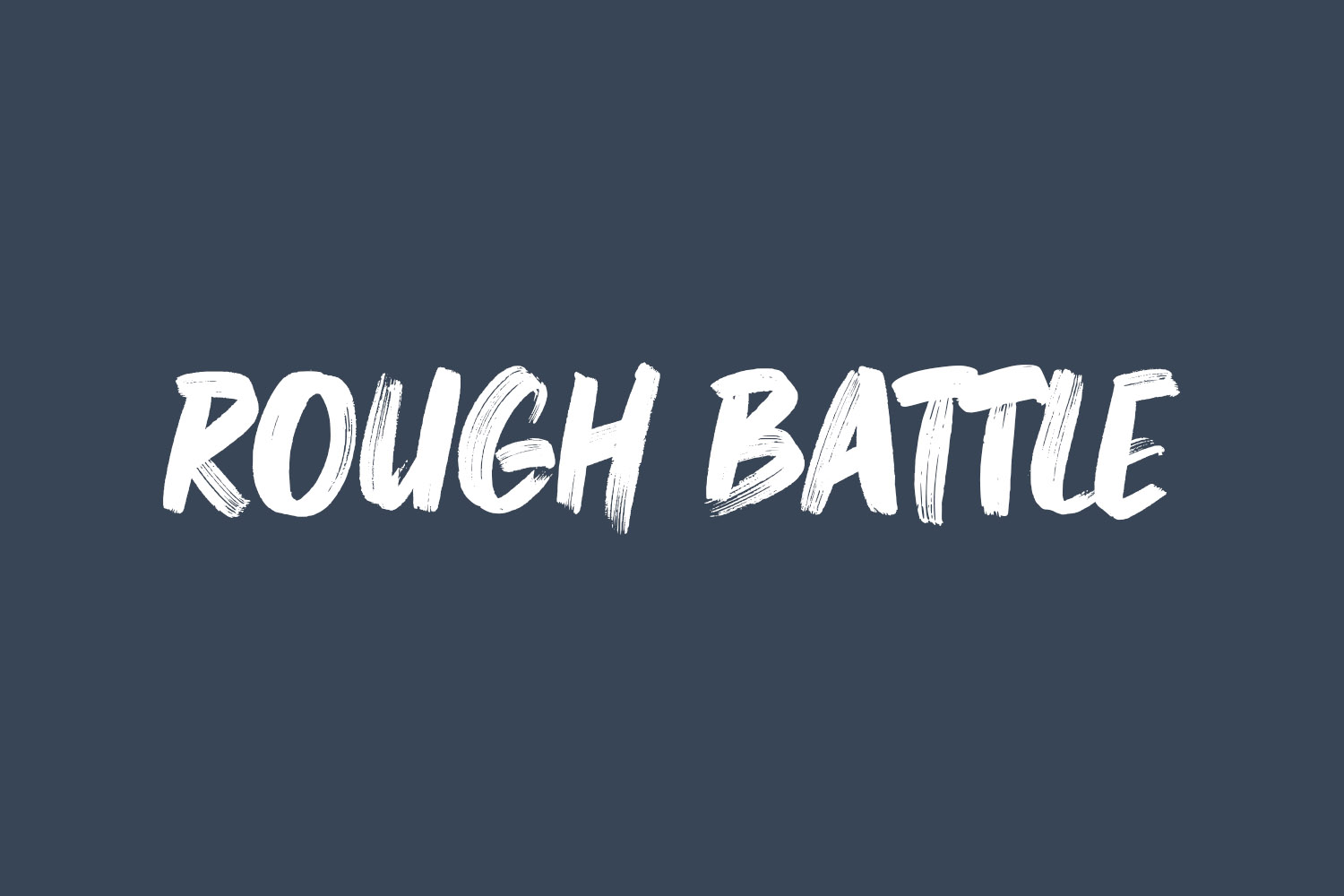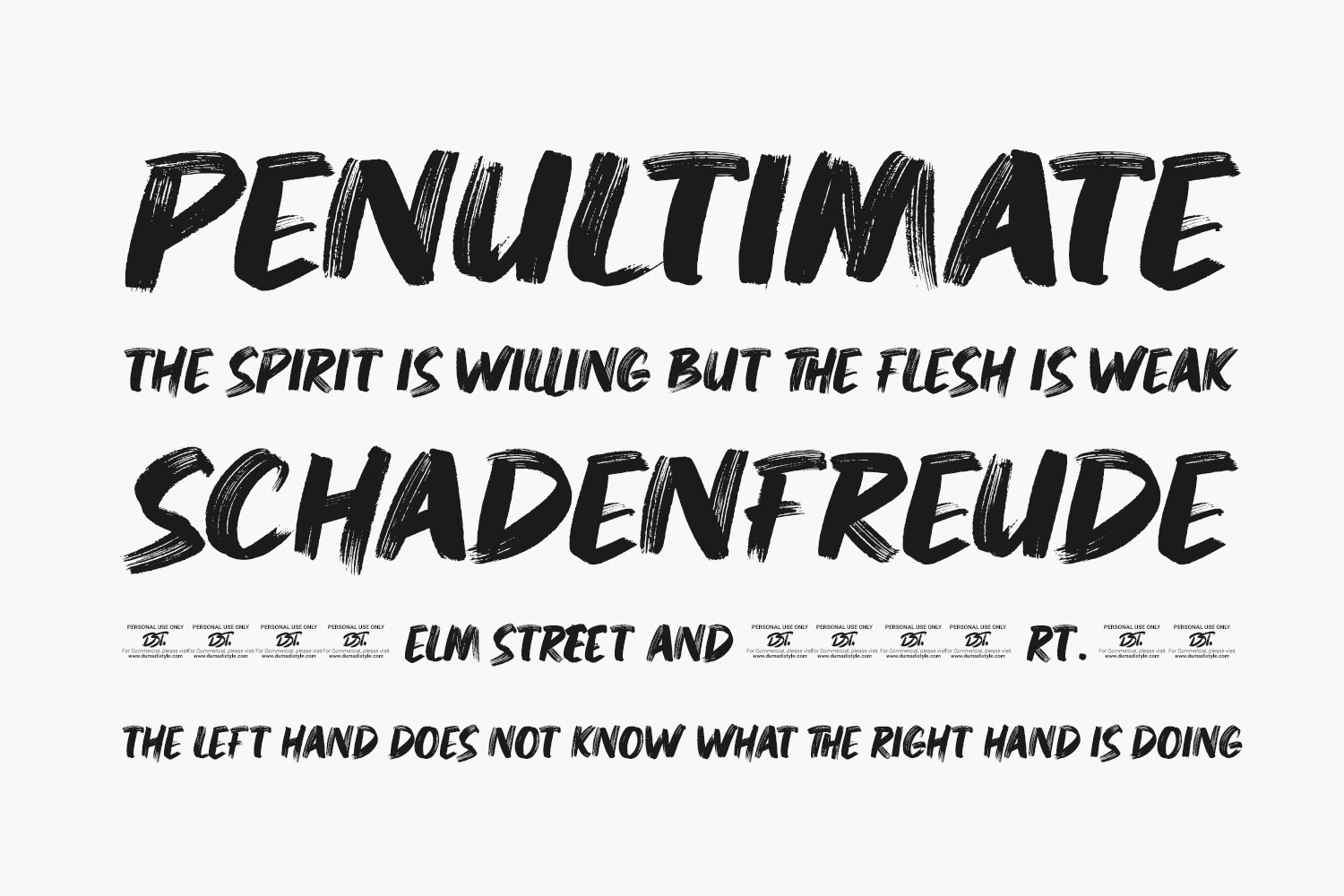
Rough Battle Free Font, characterized by its rugged brush style, is a versatile choice for design projects seeking a modern, rustic, and casual aesthetic. With an industrial vibe, this font is an excellent fit for branding, logos, posters, t-shirts, business cards, and more. Rough Battle Free Font is a demo and free for personal use only. Please purchase the full version for commercial use.